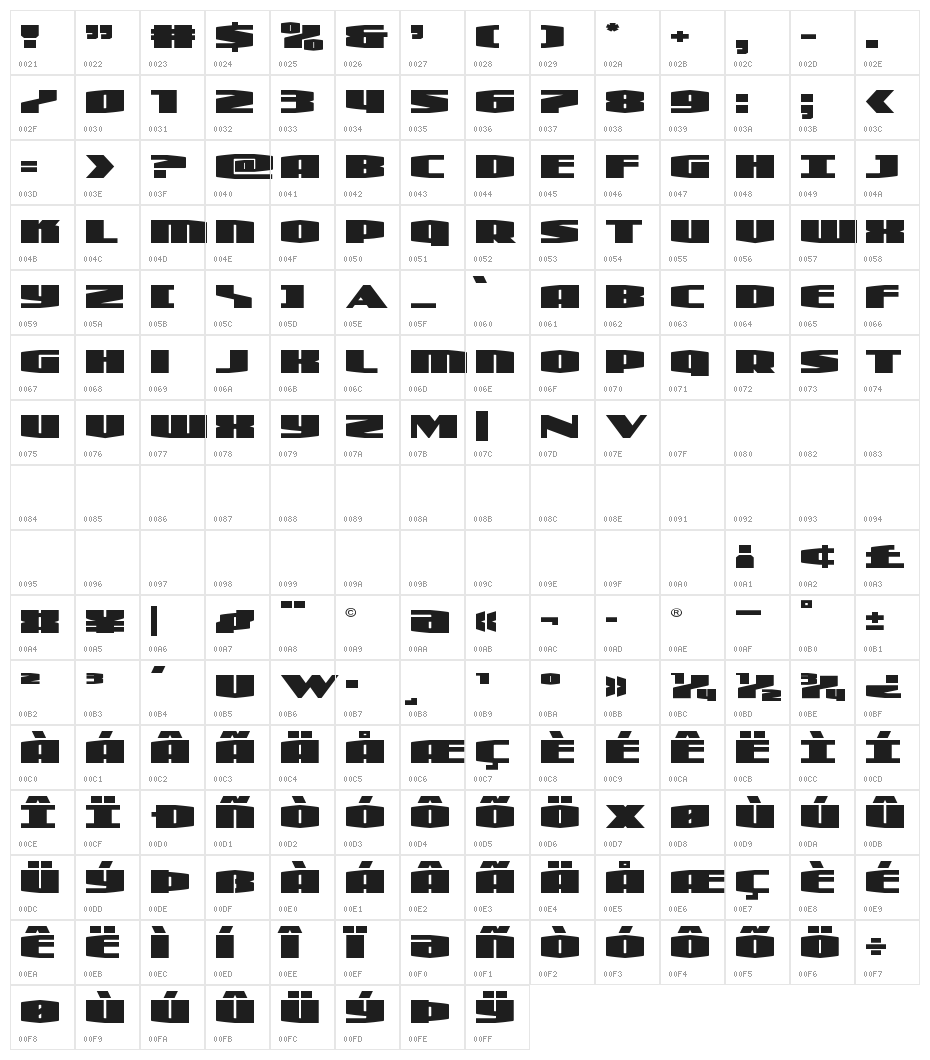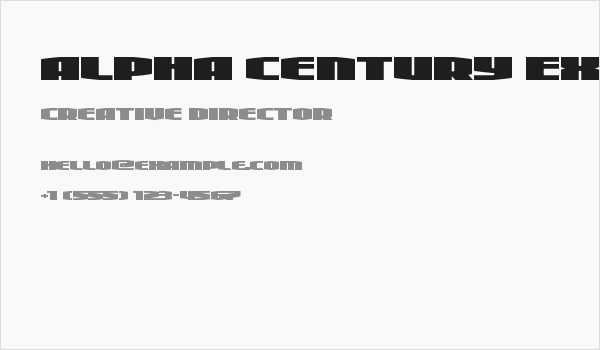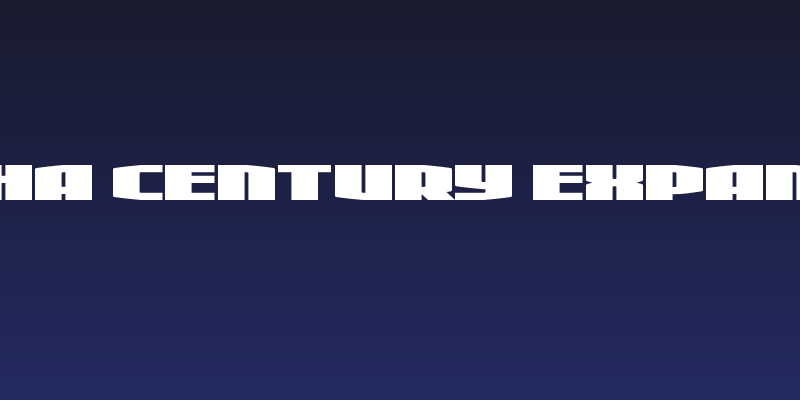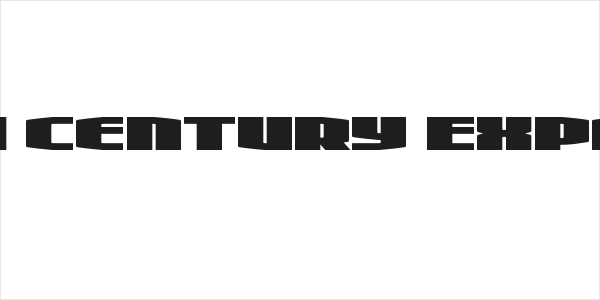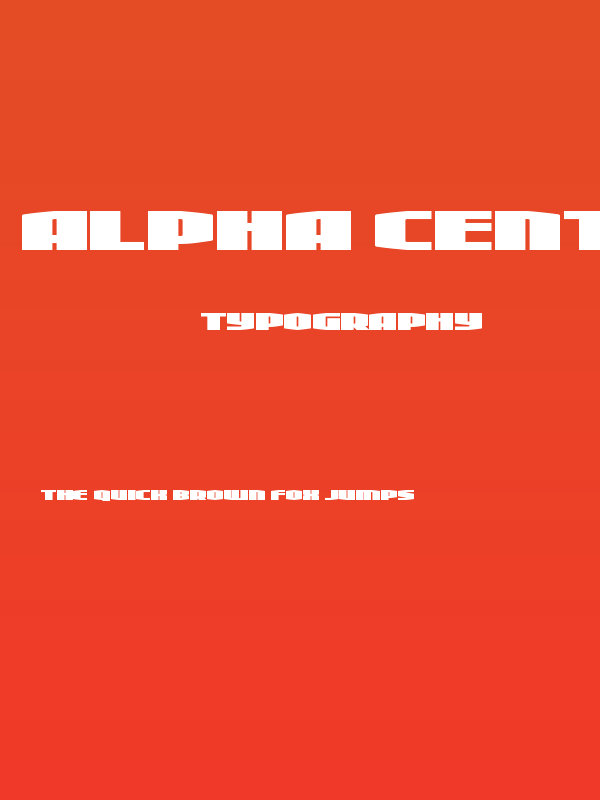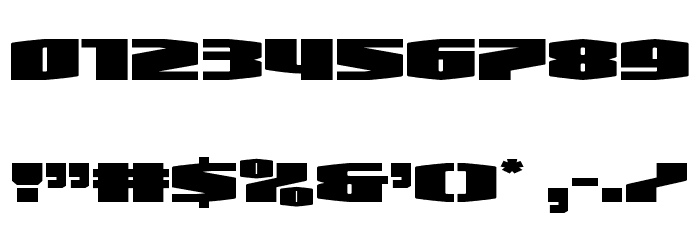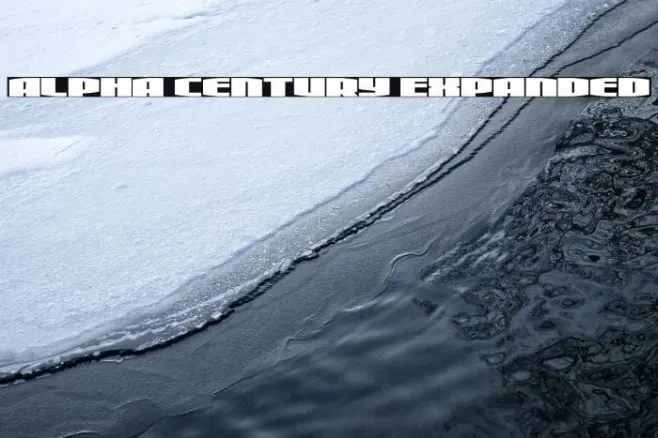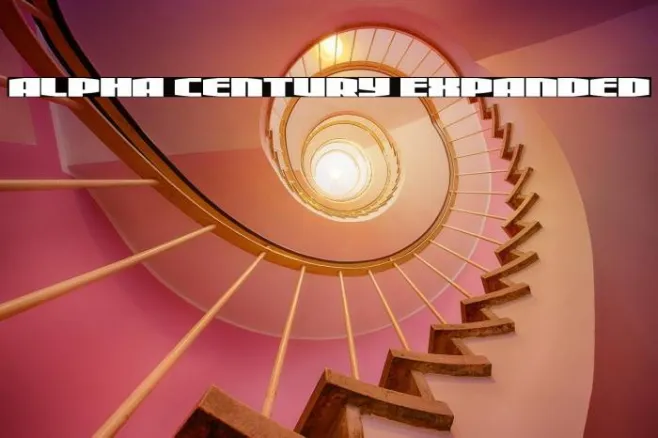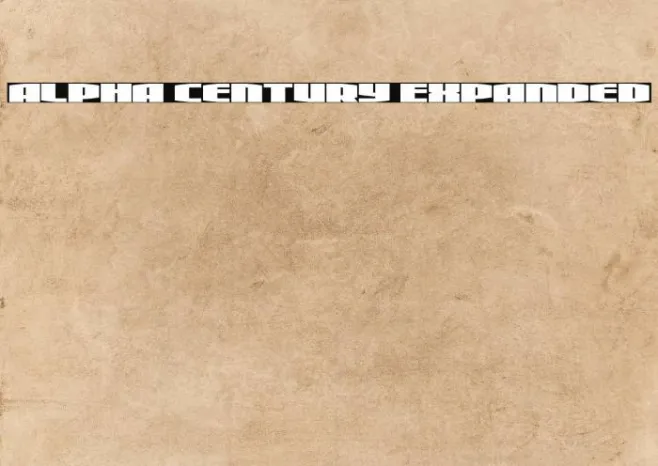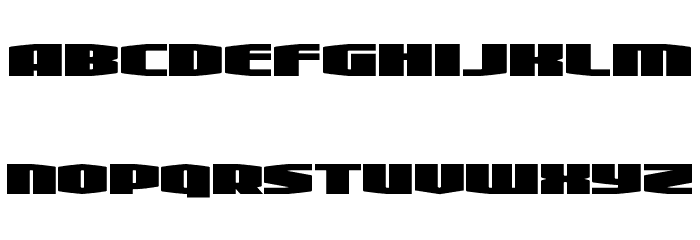
Alpha Century Expanded Font
Alpha Century Expanded Description
This font features a bold and striking design with a futuristic and geometric aesthetic. The characters are wide and blocky, with sharp angles and a strong presence. The uppercase and lowercase letters maintain a consistent style, emphasizing a sense of uniformity and modernity. The numbers and special characters follow the same bold and angular design, making them stand out prominently. This font is ideal for projects that require a strong visual impact and a contemporary feel.
| Proposed Projects | Ideal for sci-fi themed posters, modern branding, video game titles, and futuristic event invitations. |